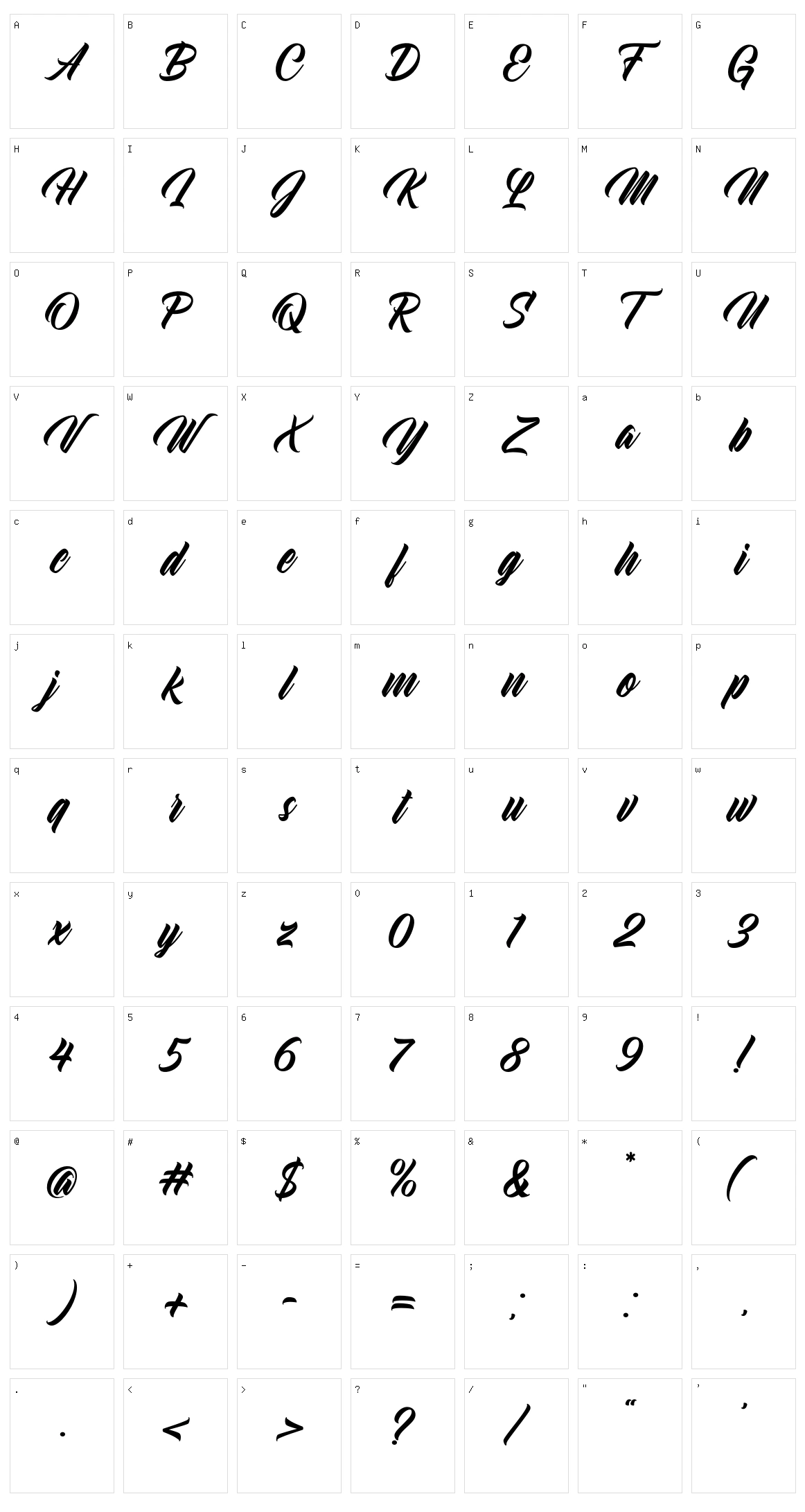
Lazybest Script is font reads as strong, confident, and dynamic and can add tons of nostalgic character to your designs and great movement this typeface and allow you to make lettering and logotype quickly and easily.